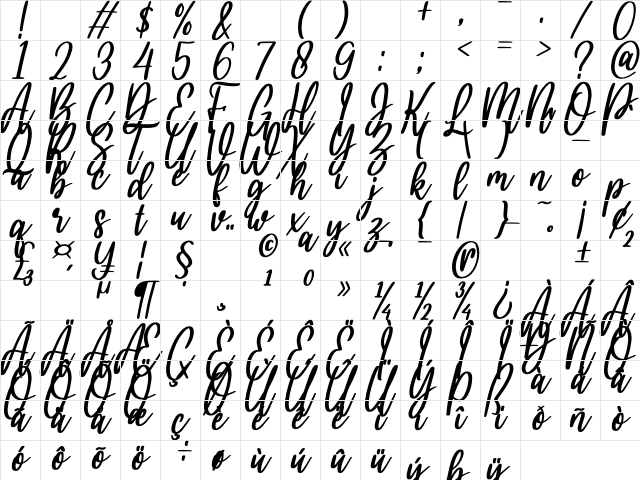
hello bella italic Italic
Design Context for hello bella italic Typeface
hello bella italic is a composed and adaptable typeface that performs quietly and consistently across a wide range of design contexts. The dynamic lean of this cut emphasises speed and emphasis in any layout.
Pro Tip: Try hello bella italic for annotation and caption copy alongside an upright companion — the contrast in angle creates a dynamic but ordered typographic system.